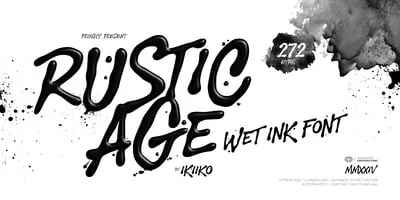
Rustic Age Font
Rustic Age Font is perfect for farmhouse branding, craft brewery logos, vintage signage, rustic wedding invitations, outdoor adventure companies, artisan product packaging, country music album covers, barn wood designs, and heritage brand communications. This weathered typeface brings authentic countryside charm to traditional and nostalgic design projects.
What makes Rustic Age Font exciting is its authentic vintage character that transports viewers to simpler times of handcrafted quality and rural traditions. The font features distressed edges, weathered textures, and organic imperfections that tell stories of time-worn craftsmanship. Its nostalgic appeal and earthy personality make it irresistible for brands seeking to connect with customers through genuine, heartfelt storytelling.
The Rustic Age Font family includes various weathered styles and textures: Regular, Bold, Distressed, Stencil, Outlined, and Hand-painted variations. Each style maintains the font's rustic character while offering designers creative flexibility for farm-to-table restaurants, vintage boutiques, and authentic heritage brands.
Whether you're designing for agricultural businesses or vintage brands, Rustic Age Font provides designers with an authentic, character-rich typeface solution. The font's weathered charm and country-inspired styling make it ideal for organic farms, craft distilleries, antique shops, and artisanal businesses. Its timeless appeal ensures your message communicates authenticity and tradition while maintaining excellent readability. The comprehensive character set includes decorative elements and rustic symbols, making it perfect for creating warm, inviting headlines and brand identities that celebrate craftsmanship and rural heritage.